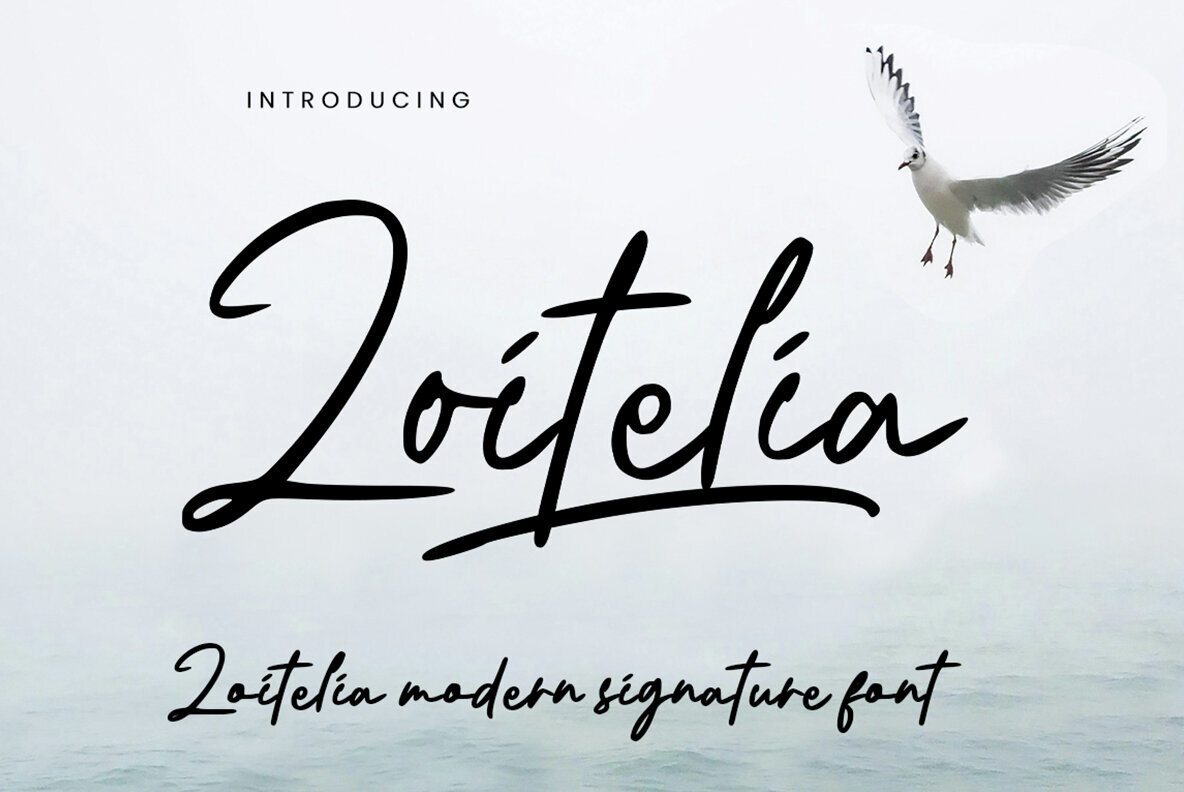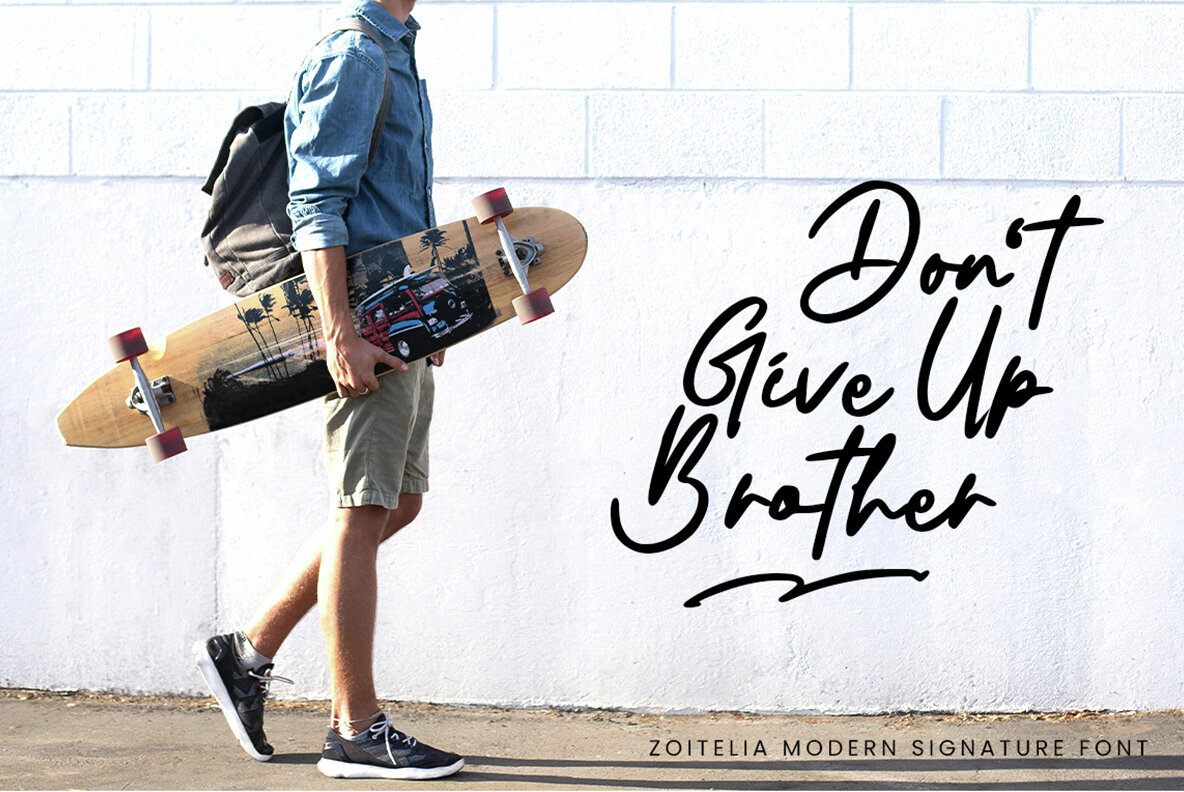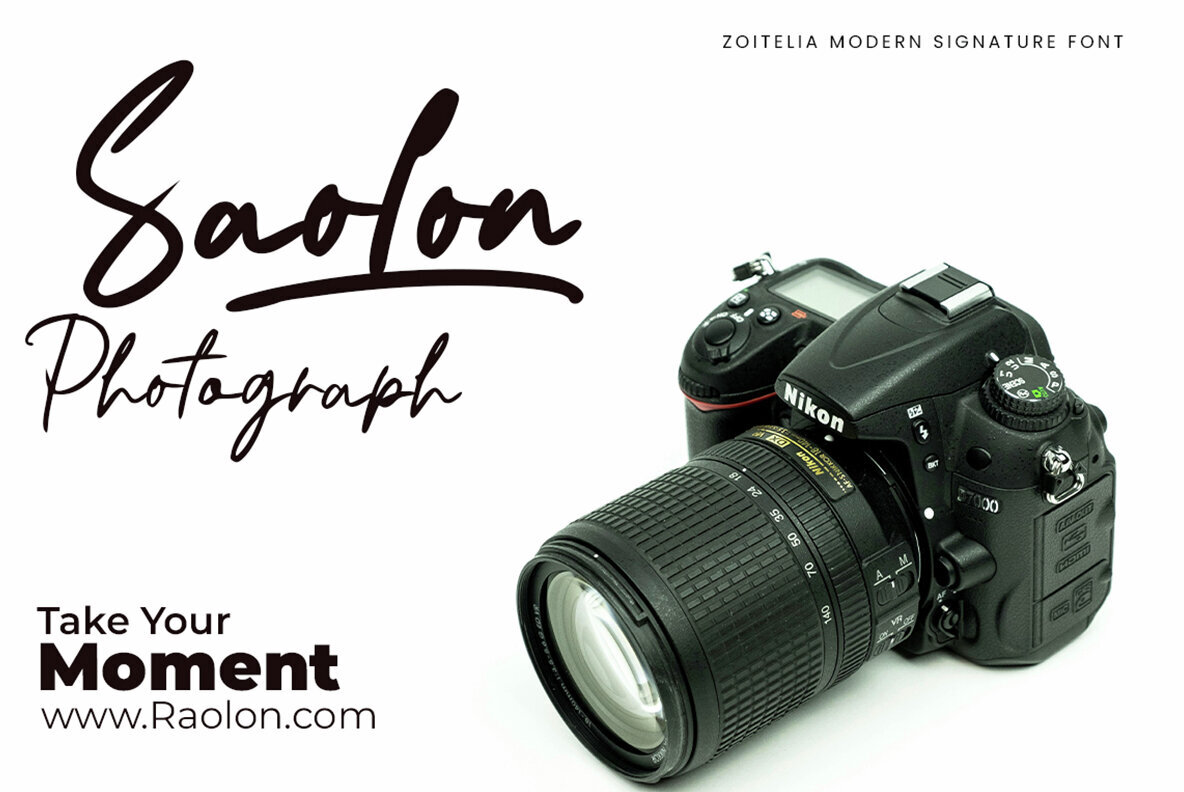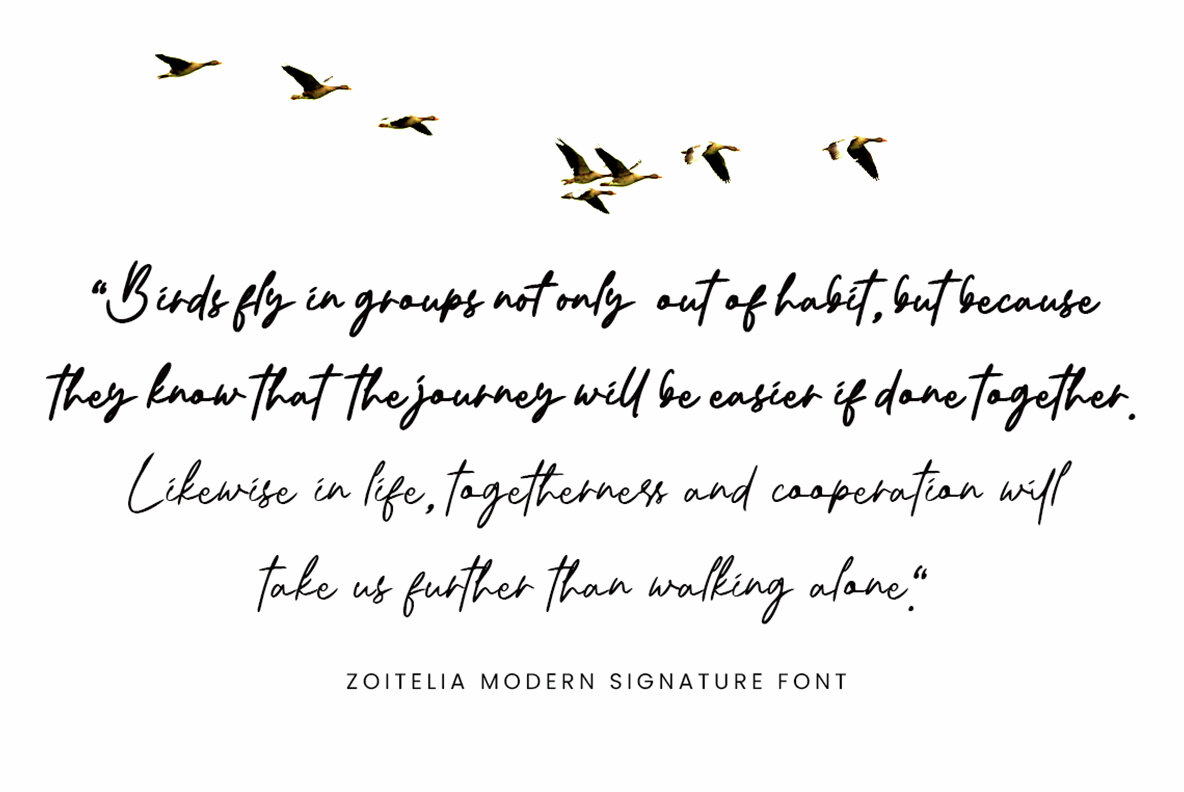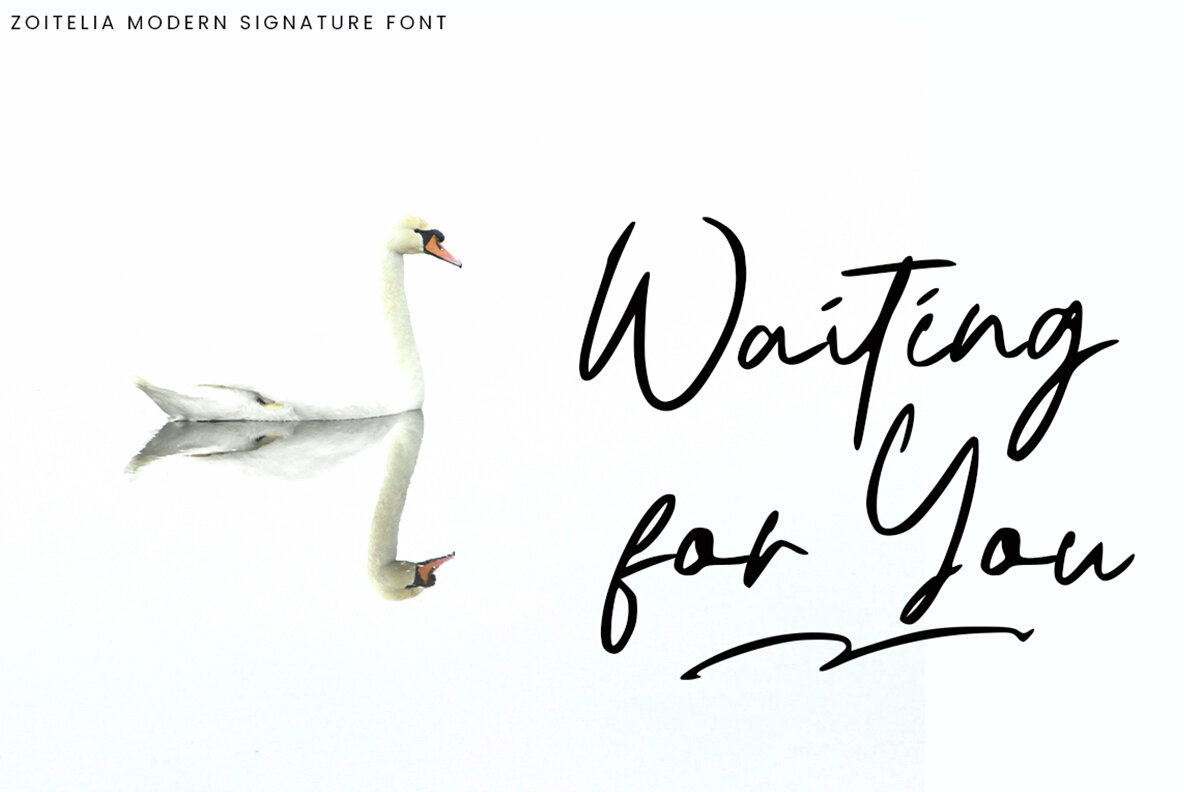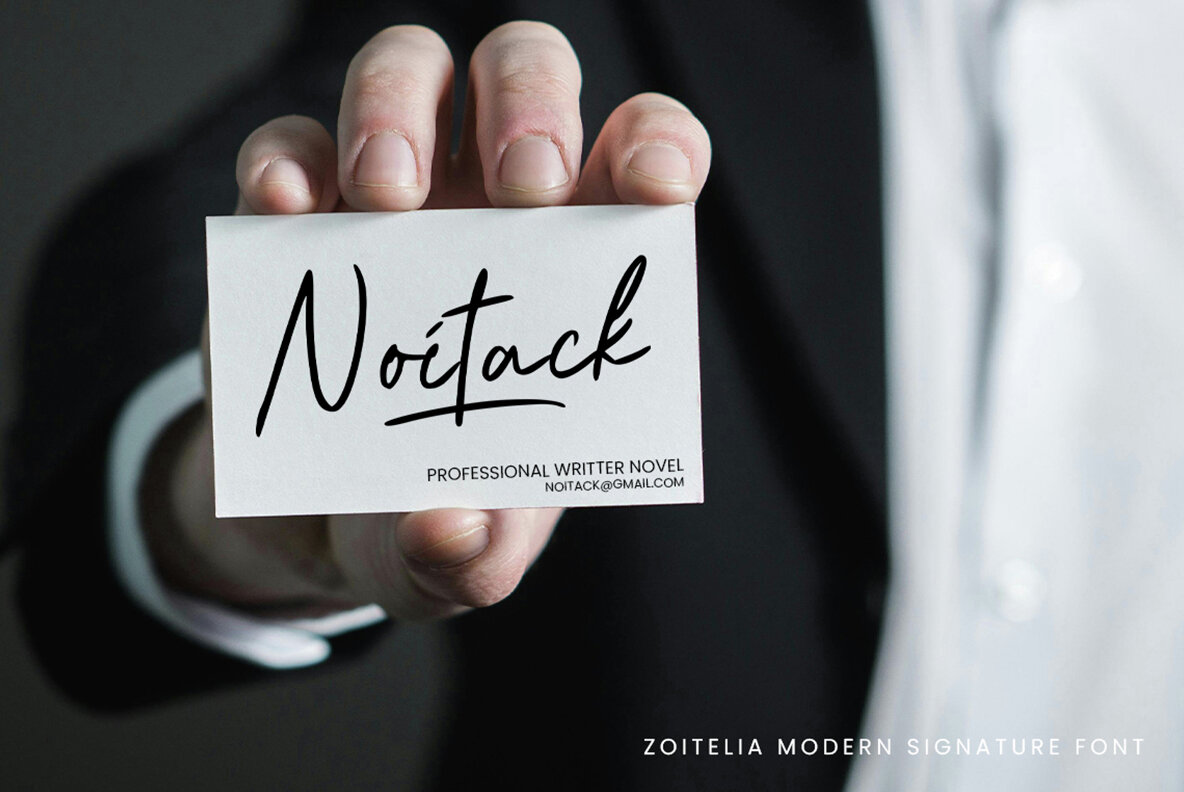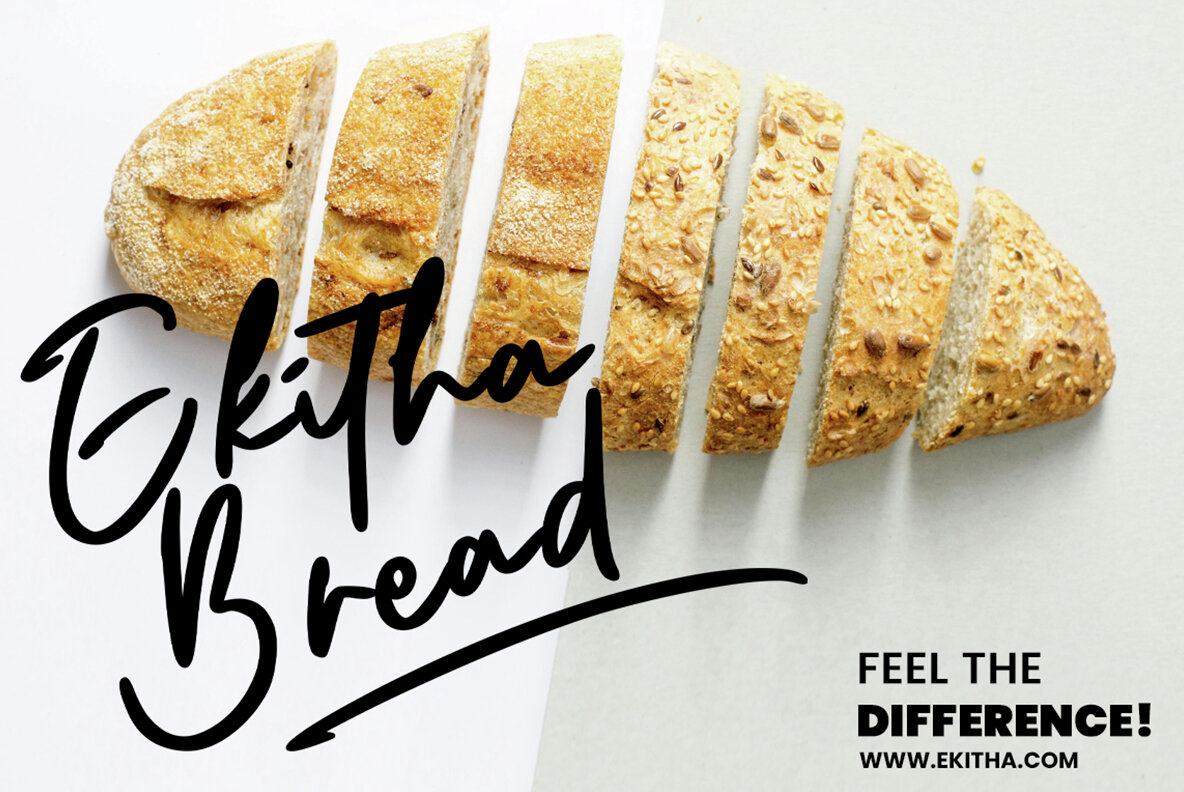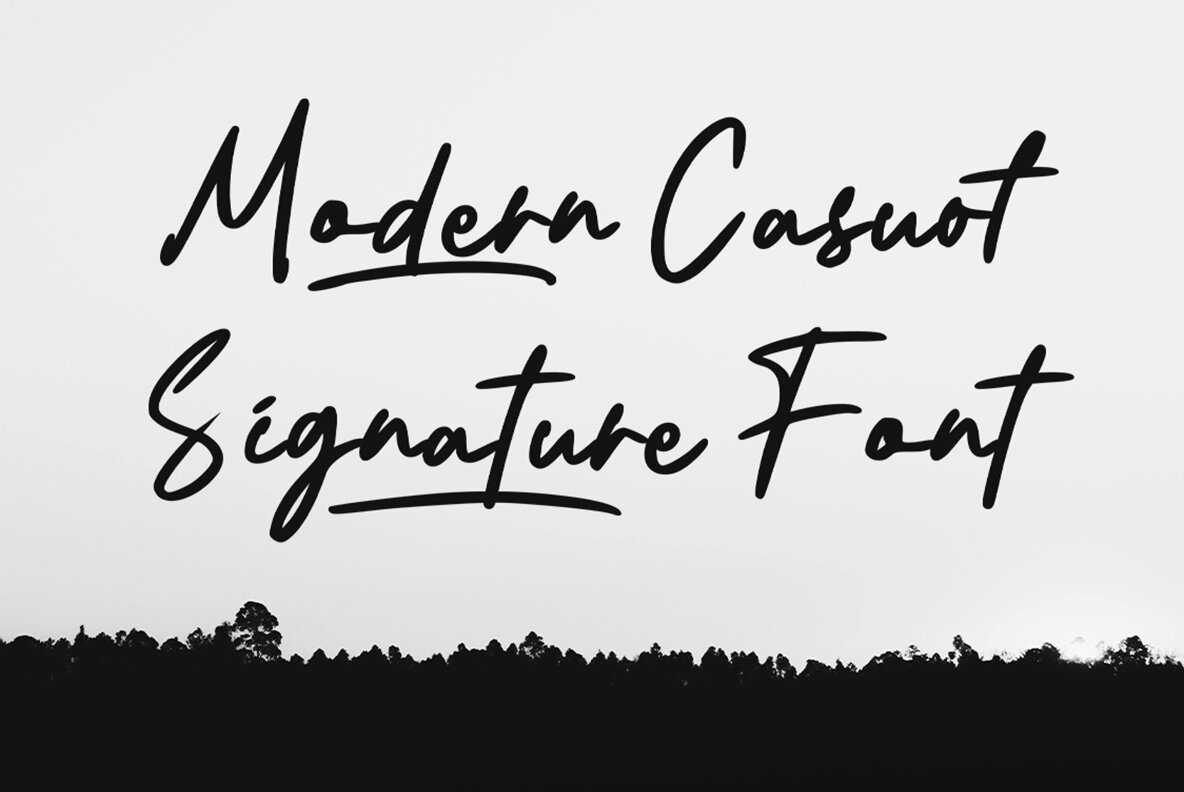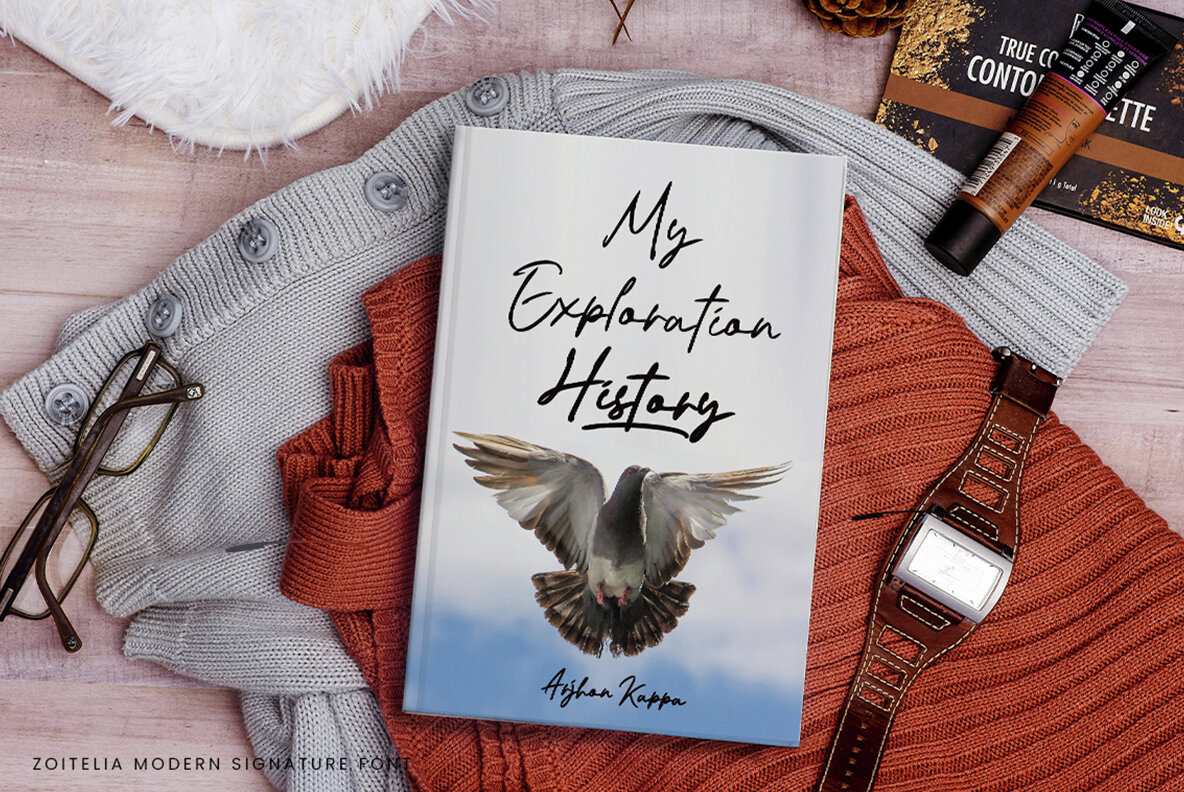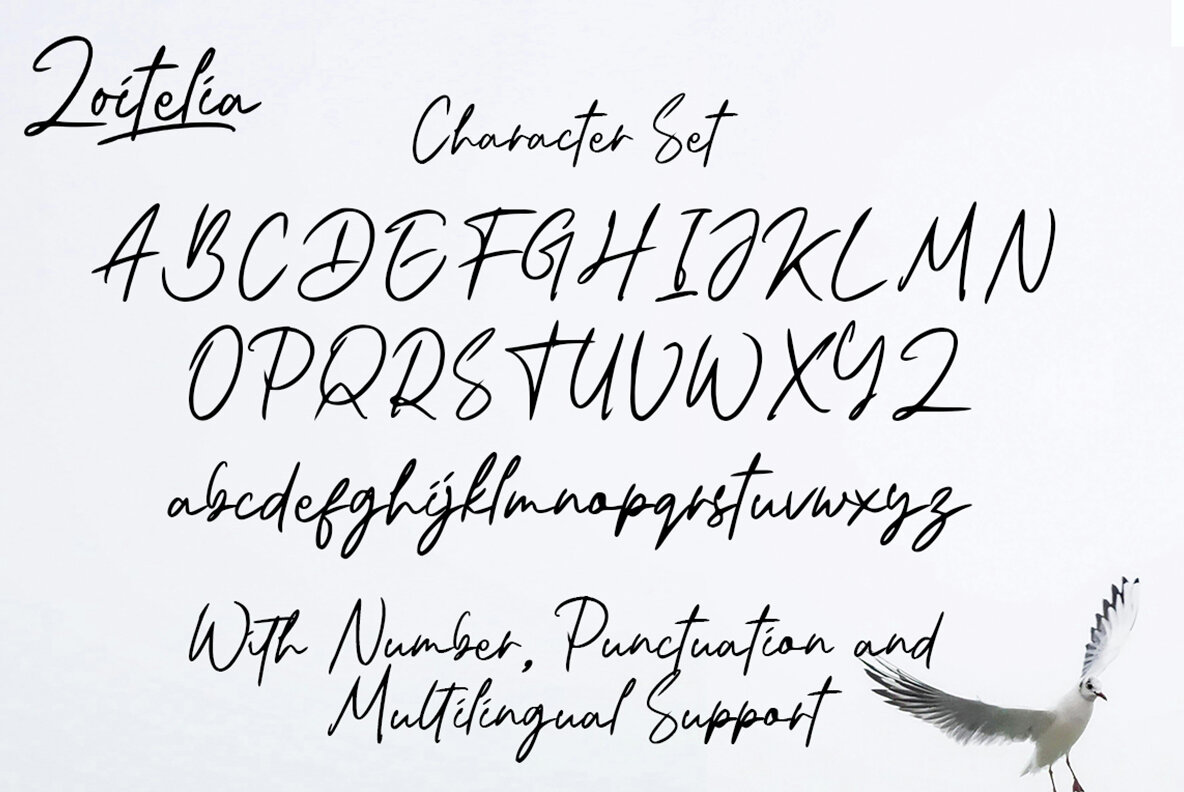
Zoitelia Font
Zoitelia is a modern signature font crafted for a natural and elegant look. With its casual yet refined strokes, this aesthetic font embodies a beautiful handwritten style, ideal for creating a captivating impression. Zoitelia is available in two weights: regular and bold, offering versatility for diverse design needs.
Perfect for a wide range of applications, Zoitelia enhances branding projects, logos, and wedding designs. It seamlessly fits into social media posts, advertisements, and product packaging. Whether used on labels, photography watermarks, invitations, or stationery, this font brings a charming handwritten touch to any project requiring a personalized feel.